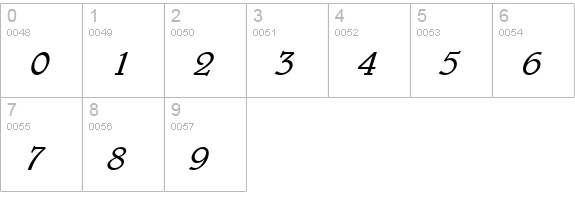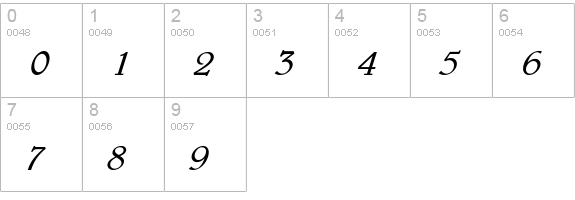
URWBerniniTLig Italic Font Details
URWBerniniTLig Italic is a distinctive, italic variant in the URWBerniniTLig typeface family \xE2\x80\x94 well suited to design and typography projects.
URWBerniniTLig Italic is a gorgeous font that exudes elegance and sophistication. With its sleek and slanted design, this typeface adds a touch of grace to any project. Its slim and curvaceous letterforms are delicately crafted, making it perfect for conveying a sense of refined beauty. This font is incredibly versatile, making it suitable for a wide range of design purposes. Whether you're working on a logo, a branding project, or even a wedding invitation, URWBerniniTLig Italic will elevate your design to new heights. Its italicized style adds a dynamic and stylish flair, making it an excellent choice for projects that require a touch of uniqueness. One of the best features of URWBerniniTLig Italic is that it is freely available to download at FontsMarket.com. This means that you can easily access and use this stunning font without any cost. Whether you're a professional designer or someone looking to add a touch of elegance to your personal projects, URWBerniniTLig Italic is accessible to all. The carefully designed letterforms of URWBerniniTLig Italic ensure legibility and readability, even in small sizes. This font is highly adaptable and works well in both print and digital mediums. Its smooth and flowing curves create a harmonious balance between aesthetics and functionality. URWBerniniTLig Italic is a font that effortlessly captures attention and leaves a lasting impression. Its timeless beauty and classic appeal make it a must-have for any designer's toolkit. So why wait? Head over to FontsMarket.com and download URWBerniniTLig Italic for free today!